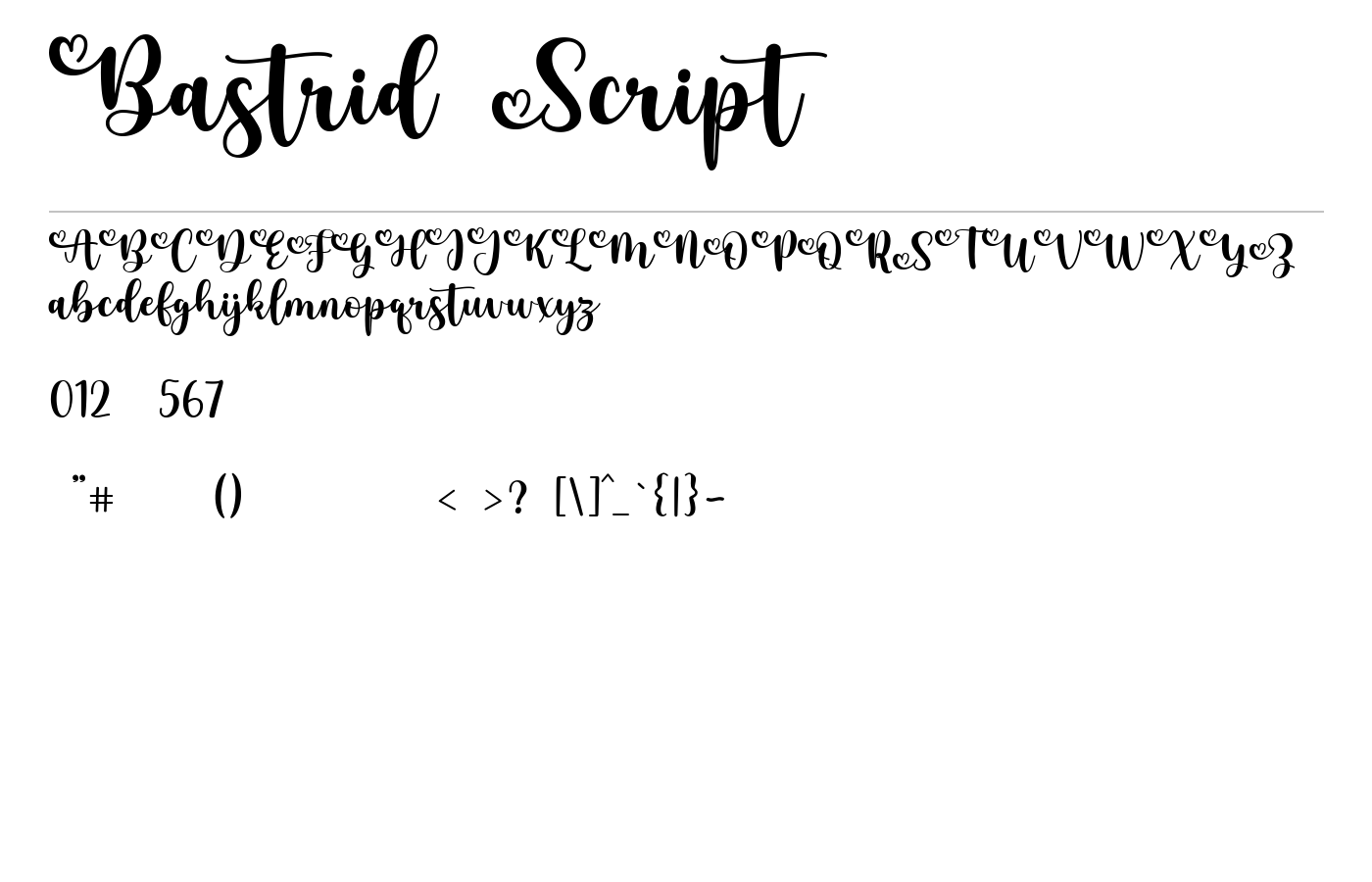
Bastrid Script is a charming and playful script font with a lively, handwritten feel. Its bold strokes and whimsical heart details on capital letters create a friendly and romantic vibe, making it perfect for invitations, greeting cards, and branding that seeks a personal, warm touch. This font works well in creative projects where a blend of elegance and casual style is desired.
Bastrid Script Font
About Bastrid Script Font